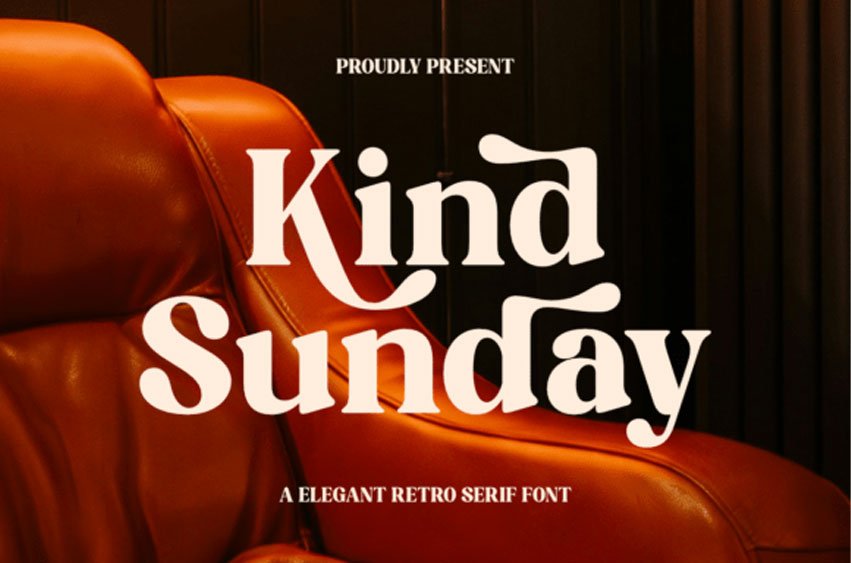
Kind Sunday Font
Kind Sunday Font is an elegant retro serif typeface crafted to bring timeless charm and refined personality into modern design.
Created for high-visibility use, Kind Sunday shines beautifully in headlines, editorial layouts, branding, posters, packaging, and lifestyle visuals. Its stylish forms and balanced proportions offer strong visual appeal while maintaining readability at larger sizes.